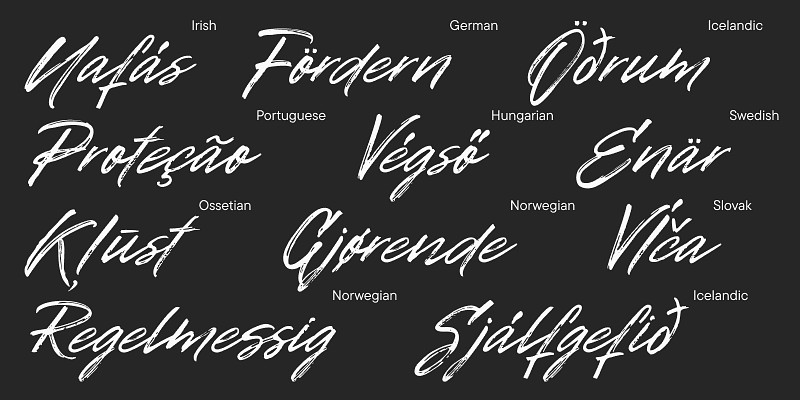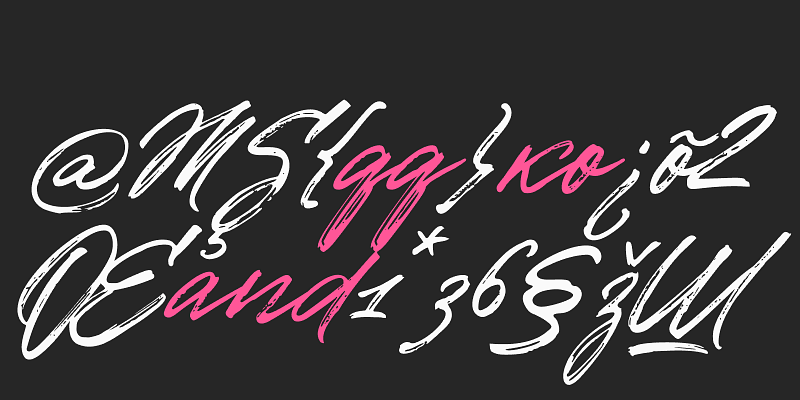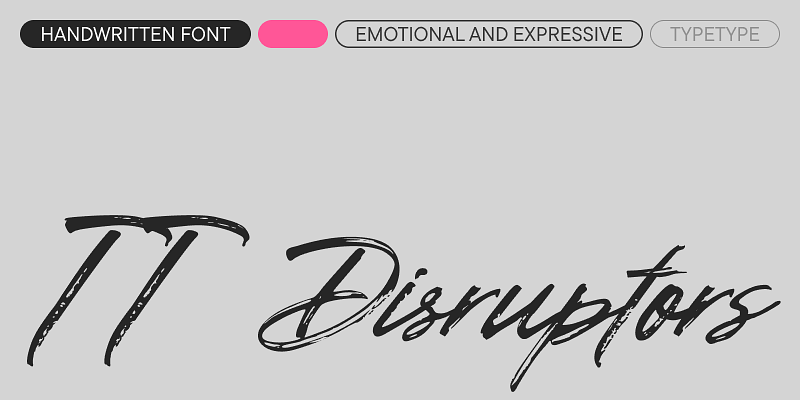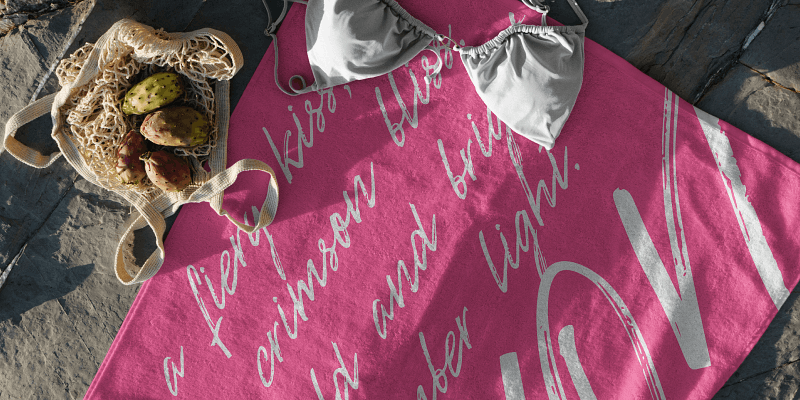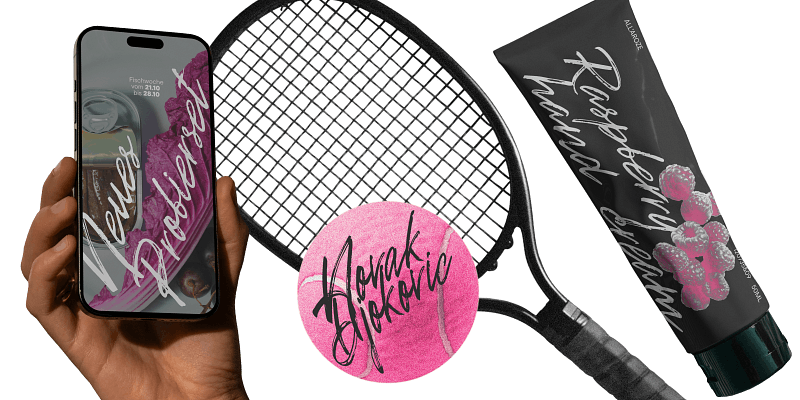
TT Disruptors is a ductile marker-drawn handwritten typeface. Its design is one-of-a-kind: worn edges, varying stroke thickness, and elongated ascenders and descenders give it a lively, dynamic texture and handcrafted feel. The personality of this font is spirited and emotional, yet warm and soulful.
TT Disruptors is rich with context alternates that enhance its expressiveness. We’ve developed alternative forms for frequently used letters. When typing, these automatically change depending on neighboring characters, ensuring the text looks captivating with any letter combination.